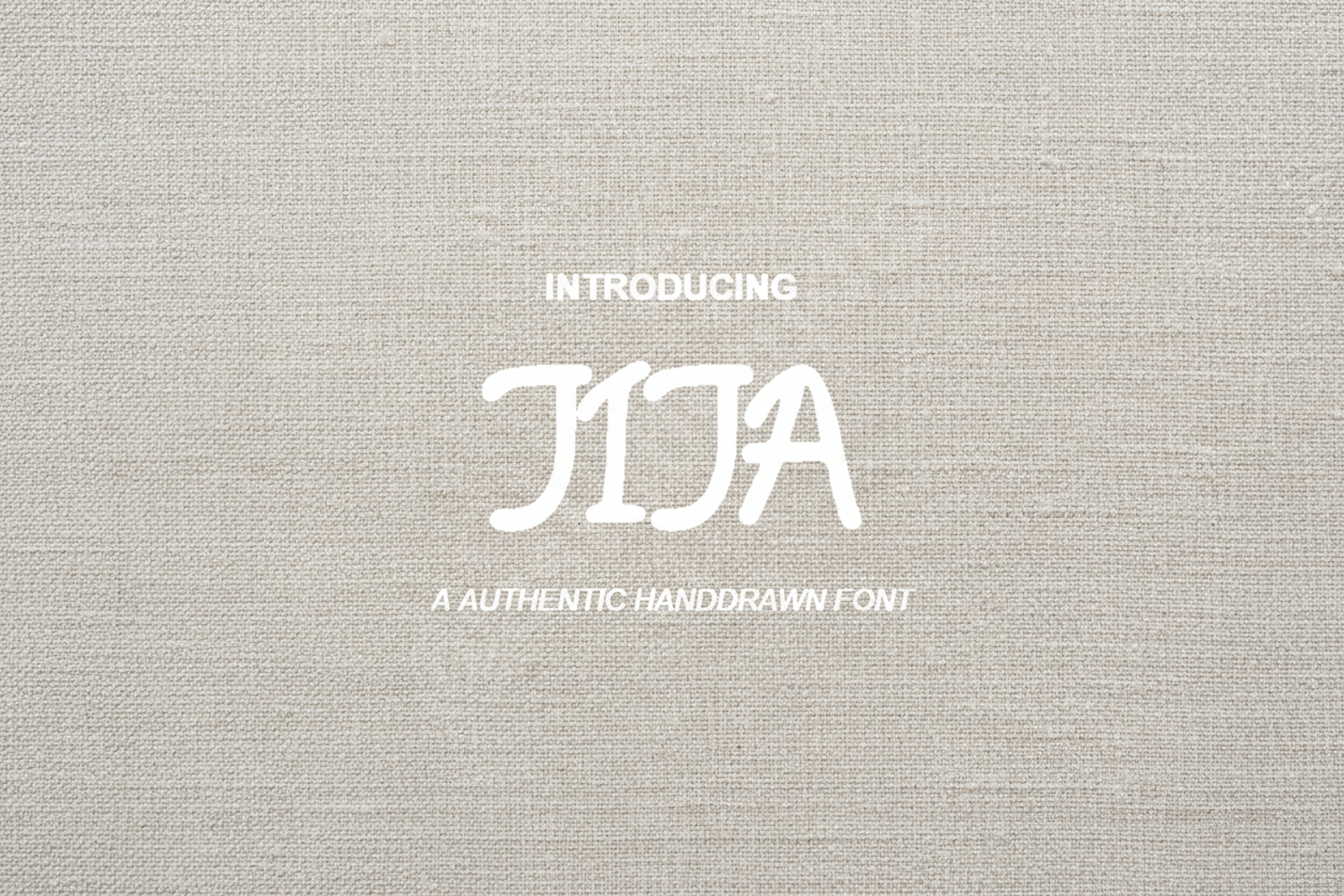
Jija - Modern Minimalist Sans Serif Typeface
Jija
Elevate your design projects with Jija, a premium sans serif font that embodies modern sophistication and clean aesthetics. Carefully crafted to provide a perfect balance between contemporary style and functional readability, Jija is designed for those who seek a professional edge in their creative work. Its versatile nature allows it to transition seamlessly from bold headlines to delicate body text.
- Full set of uppercase and lowercase letters
- Numbers and essential punctuation
- Multilingual support for global accessibility
- Branding and Identity: Create memorable logos and brand guidelines with a high-end feel.
- Editorial Design: Perfect for magazine layouts, book covers, and digital publications.
- Wedding Stationery: Add a touch of modern elegance to invitations and save-the-date cards.
- Social Media Graphics: Stand out on Instagram and Pinterest with clean, legible typography.
- Web Design: Enhance user experience with a font that looks stunning across all screen resolutions.